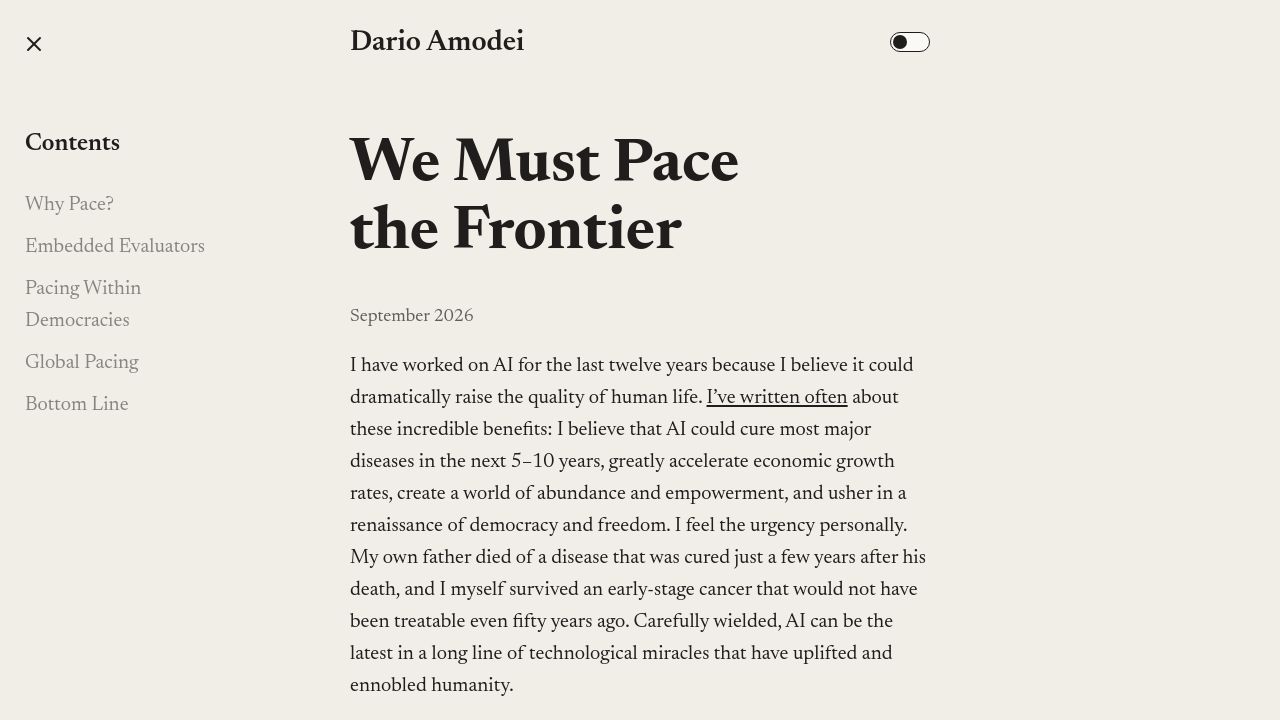
Dario Amodei — We Must Pace the Frontier
What fonts does Darioamodei use?
Dario Amodei's website, darioamodei.com, employs a diverse range of fonts that resonate with its focus on AI and technology. The use of Arial and helvetica-neue ensures clarity and accessibility, while custom fonts like Newsreader 24 Pt and Newsreader Display bring a unique character to the site. Phosphor adds a modern touch, enhancing the overall visual narrative. The combination of these fonts underlines the brand's commitment to innovation and forward-thinking in the tech industry.
Frequently asked questions about Darioamodei.com's fonts
What fonts are used on darioamodei.com?
Dario Amodei's website utilizes several fonts including Arial, helvetica-neue, custom fonts like Newsreader 24 Pt, Newsreader Display, and Phosphor.
How does Newsreader 24 Pt compare to other fonts?
Newsreader 24 Pt offers a distinctive style that stands out among typical web fonts, providing a unique visual identity while still maintaining readability.
What styles or weights do the fonts on darioamodei.com include?
The primary fonts on darioamodei.com include weights like 400 for Arial and helvetica-neue, and 600 for Newsreader Display, accommodating various design needs.
Why are fallback fonts used on darioamodei.com?
Fallback fonts like Helvetica, Segoe UI, Ubuntu, and Verdana are included to ensure text remains legible and visually appealing in case the primary fonts fail to load.